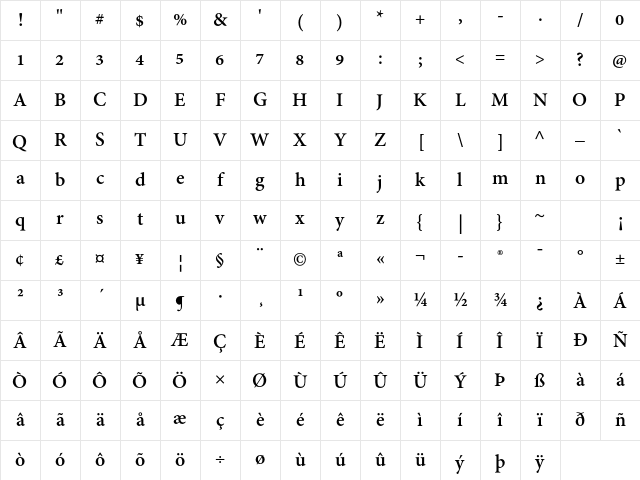
Adobe Thai Bold
Foundry: Tiro Typeworks for Adobe Systems Incorporated.
Designer: Fiona Ross, John Hudson and Tim Holloway (Thai) and Robert Slimbach (Latin)
Design Context for Adobe Thai
Adobe Thai is a composed and adaptable typeface that performs quietly and consistently across a wide range of design contexts. Its bold stroke weight gives it real presence on the page.